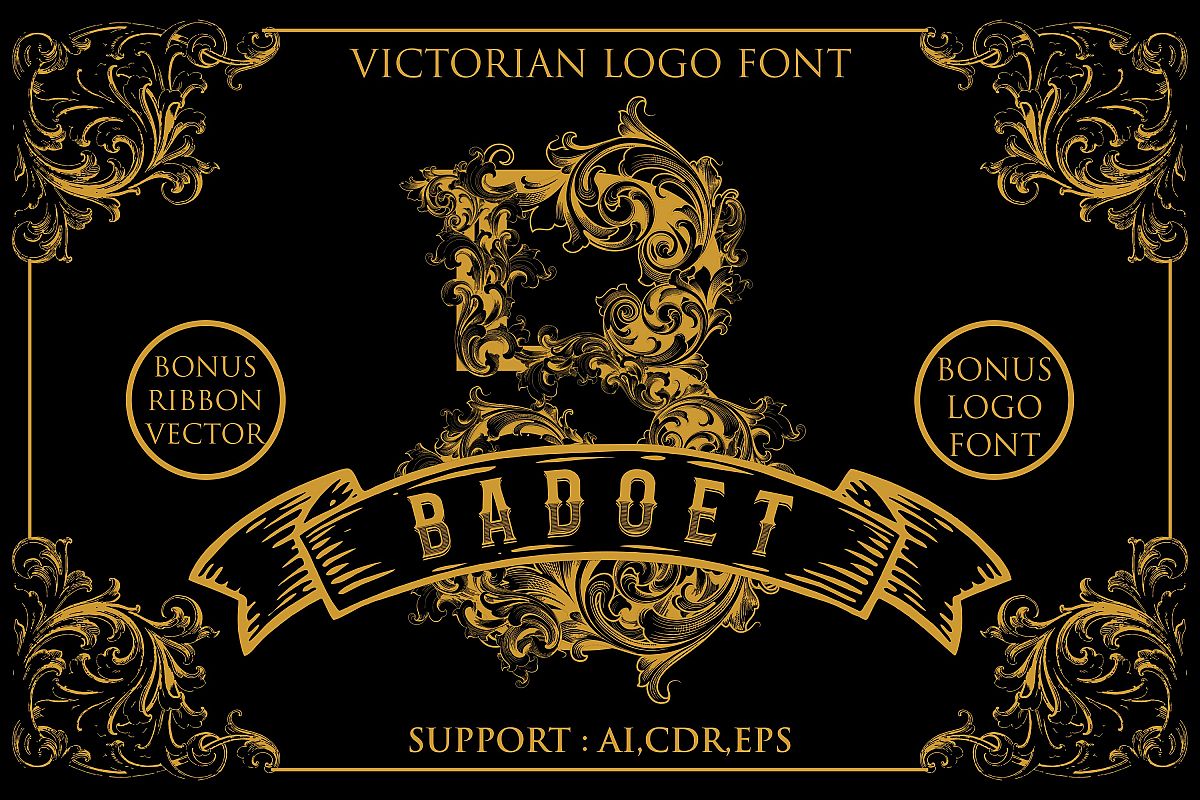
Badoet | Victorian Logo Fonts
BADOET-BADOET
Introducing Badoet Typeface font style that looks western. Victorian nuance, old-fashioned, old, retro. You can use this font for various purposes. such as logos, t-shirts, posters, labels, letterhead, book covers, etc.